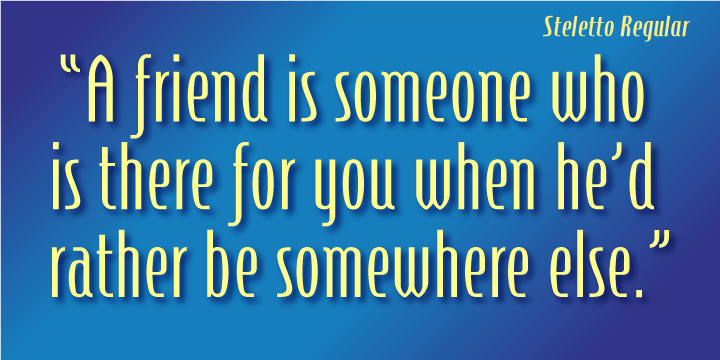
Steletto
Condensed Gothic. Great for tight-fitting headlines and other condensed titling situations such as headlines, ads, invitations, captions, packaging, bulletins, posters, and greeting cards.